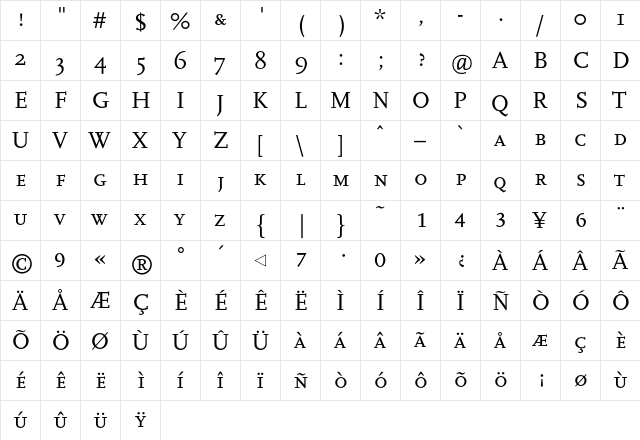
FFScala-Caps Regular
Design Context for FFScala-Caps Typeface
FFScala-Caps offers clean, dependable letterforms without strong stylistic allegiance, making it a practical choice for designers who need flexibility.
Pro Tip: Use FFScala-Caps in both headline and body roles to test its range before committing to a single application.